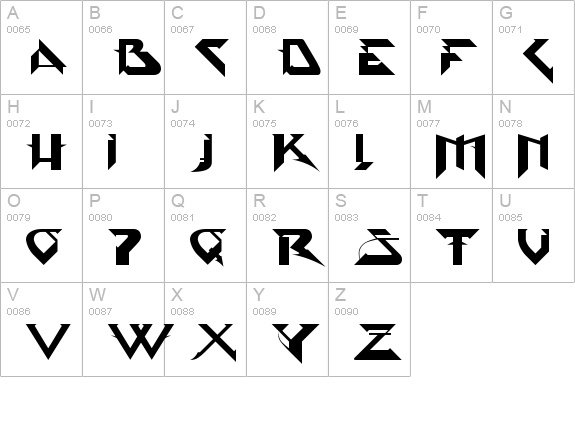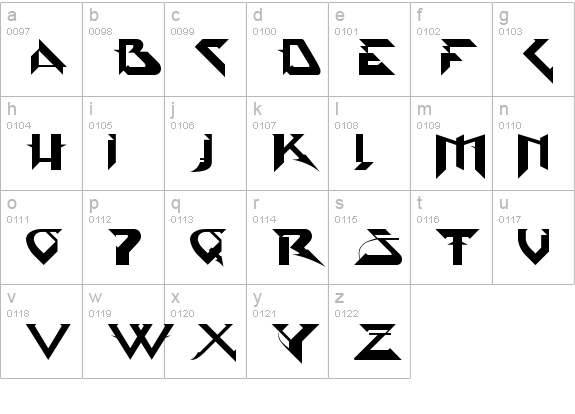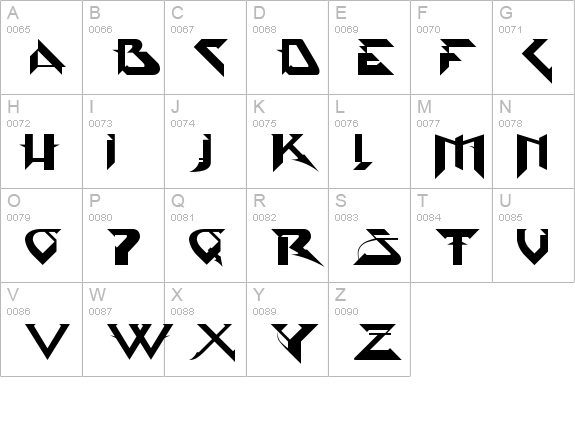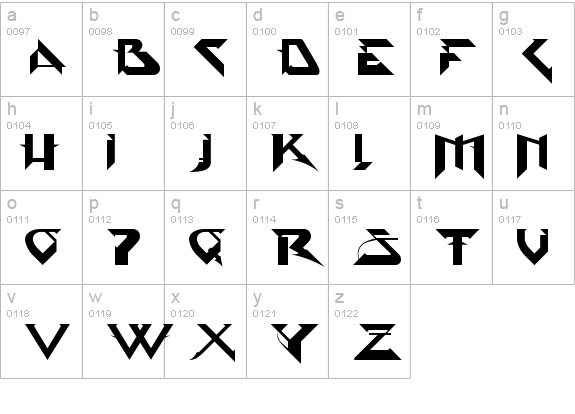
PsyType Font Details
Introducing PsyType font, a stunning and versatile typeface that exudes creativity and personality. With its unique design elements and modern aesthetic, PsyType is perfect for a wide range of design projects, from branding to social media graphics. Embrace the playful yet sophisticated vibe of PsyType font, as it effortlessly adds a touch of flair to your designs. Its sleek lines and stylish curves make it stand out from the crowd, ensuring that your text makes a lasting impression. And the best part? PsyType font is completely free to download at FontsMarket.com! Yes, you read that right - you can elevate your designs with this amazing font without spending a penny. So why wait? Head over to FontsMarket.com now and give your projects a fresh new look with PsyType font.